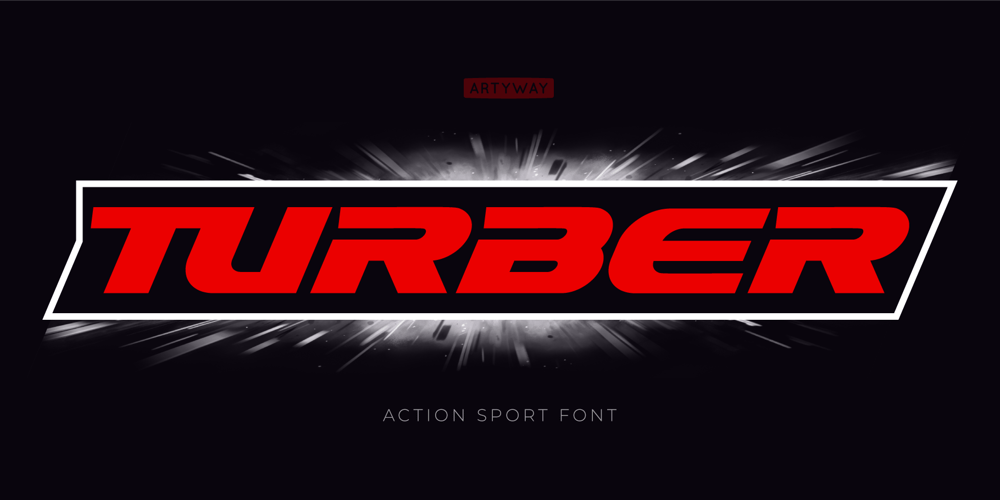
Turber Font Family was designed by Yehor Lisnyi and published by Artyway. Turber contains 1 styles and family package options. Awesome sport font with italic wide letters, modern letter cutout and dynamic slant.Ideal for sports headline of speed car race, logo and monogram of automotive game or other modern dynamic textFont “Turber” compares favorably with its readability and massiveness, creates the effect of power and speed.